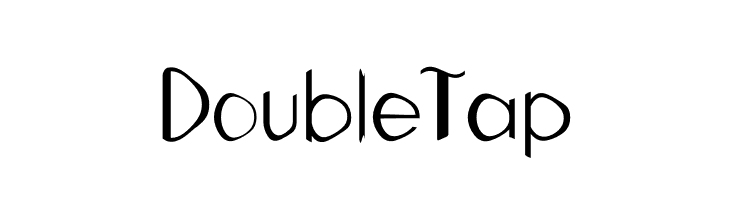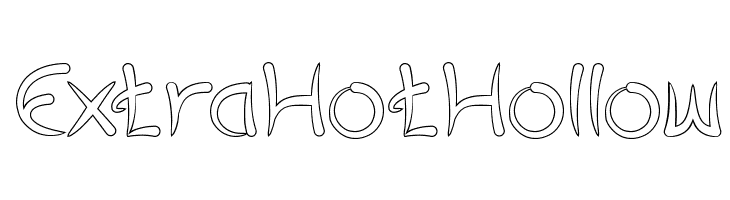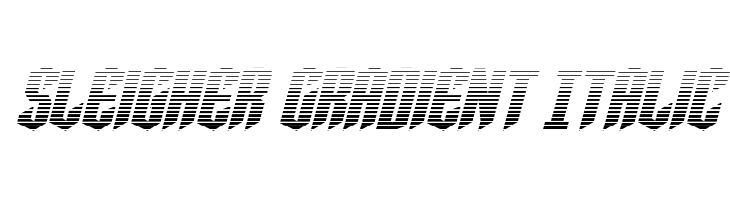
A playful and artistic font with dynamic stroke variations.
A bold, geometric font with rounded shapes and a modern, playful style.
A bold, modern font with geometric and futuristic elements.
An elegant cursive script font with interconnected letters and ornate flourishes.
A bold, playful handwritten font with a casual and friendly style.
A bold and dynamic font with thick strokes and unique curves, perfect for creative projects.
A bold, geometric font with strong vertical lines and angular shapes.
A bold, condensed serif font with an elegant italic style.
A bold, geometric font with a modern and striking appearance.
A bold, italicized font with a dynamic gradient effect and sharp, angular characters.